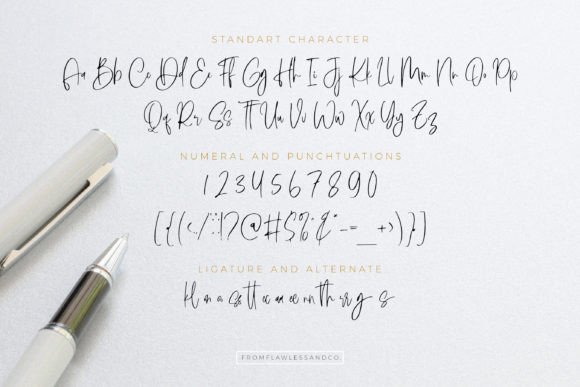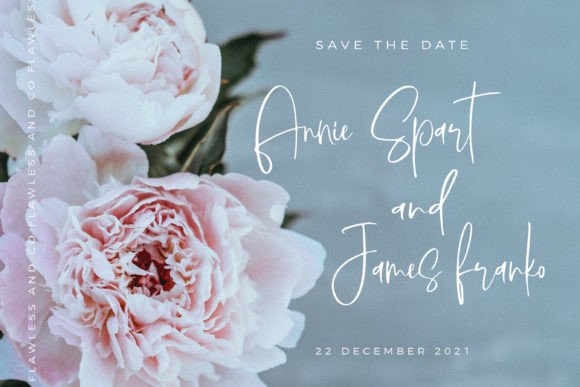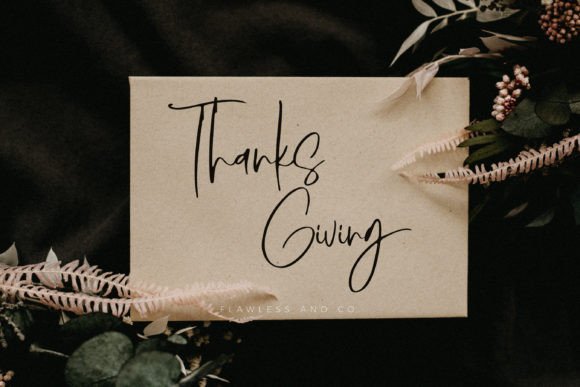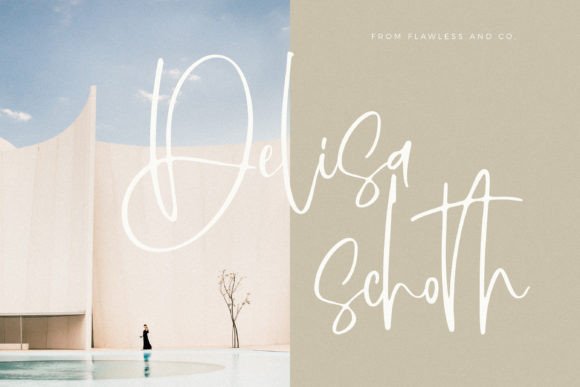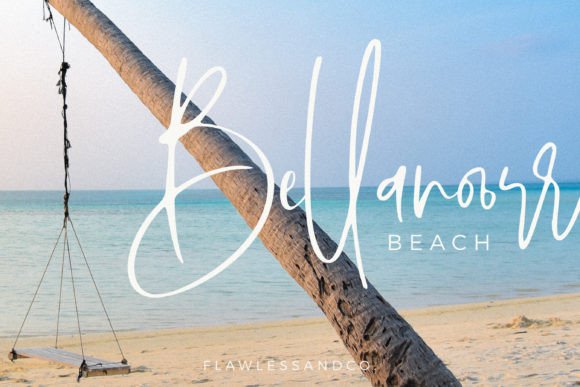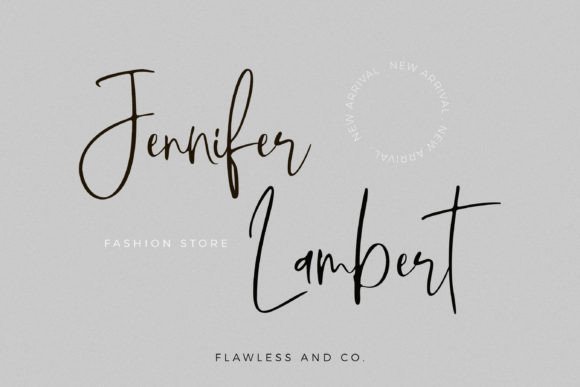
Bartones Font: Elevate Your Design with Luxury and Elegance
In the world of typography, fonts play a crucial role in making or breaking a design. A beautiful font can instantly elevate your project, adding a touch of sophistication and elegance. One such font that has been making waves in the design community is the Bartones Font. This stunning handwritten font is a game-changer for designers and crafters looking to add a luxury spark to their creations.
What Makes Bartones Font So Special?
Bartones Font is a beautiful and light handwritten font that boasts a unique feel and a stunning impact. Its elegant and refined design makes it perfect for a wide range of design projects, from branding and packaging to wedding invitations and digital marketing materials. The font’s light and airy texture gives it a sophisticated and luxurious feel, making it ideal for designers who want to create high-end designs.
PUA Encoding: Unlocking Endless Creative Possibilities
One of the standout features of Bartones Font is its PUA (Private Use Area) encoding. This means that the font is encoded with a range of glyphs and ligatures that can be easily accessed and used in your designs. PUA encoding allows designers to unlock the full creative potential of the font, making it easy to add unique and custom elements to their projects. With Bartones Font, you can access a wide range of glyphs and ligatures, giving you endless creative possibilities.
Bartones Font is a versatile font that is perfect for both designers and crafters. Whether you’re a professional designer looking to create high-end branding materials or a crafter looking to add a personal touch to your DIY projects, this font has got you covered. The font’s elegant and refined design makes it suitable for a wide range of projects, including:
- Branding and packaging
- Digital marketing materials
- DIY projects and crafts
Why Choose Bartones Font?
With so many fonts available, why choose Bartones Font? Here are just a few reasons why this font stands out from the crowd:
- Unique and elegant design: Bartones Font boasts a unique and elegant design that will add a touch of sophistication to any project.
- PUA encoded: The font’s PUA encoding makes it easy to access and use a wide range of glyphs and ligatures.
- Light and airy texture: The font’s light and airy texture gives it a luxurious and refined feel.
- Versatile: Bartones Font is suitable for a wide range of projects, from branding and packaging to DIY crafts.
In conclusion, Bartones Font is a stunning handwritten font that is perfect for designers and crafters looking to add a touch of luxury and elegance to their projects. With its unique and elegant design, PUA encoding, and light and airy texture, this font is sure to elevate your designs and take them to the next level. Whether you’re a professional designer or a DIY enthusiast, Bartones Font is a must-have font that will help you create beautiful and sophisticated designs.